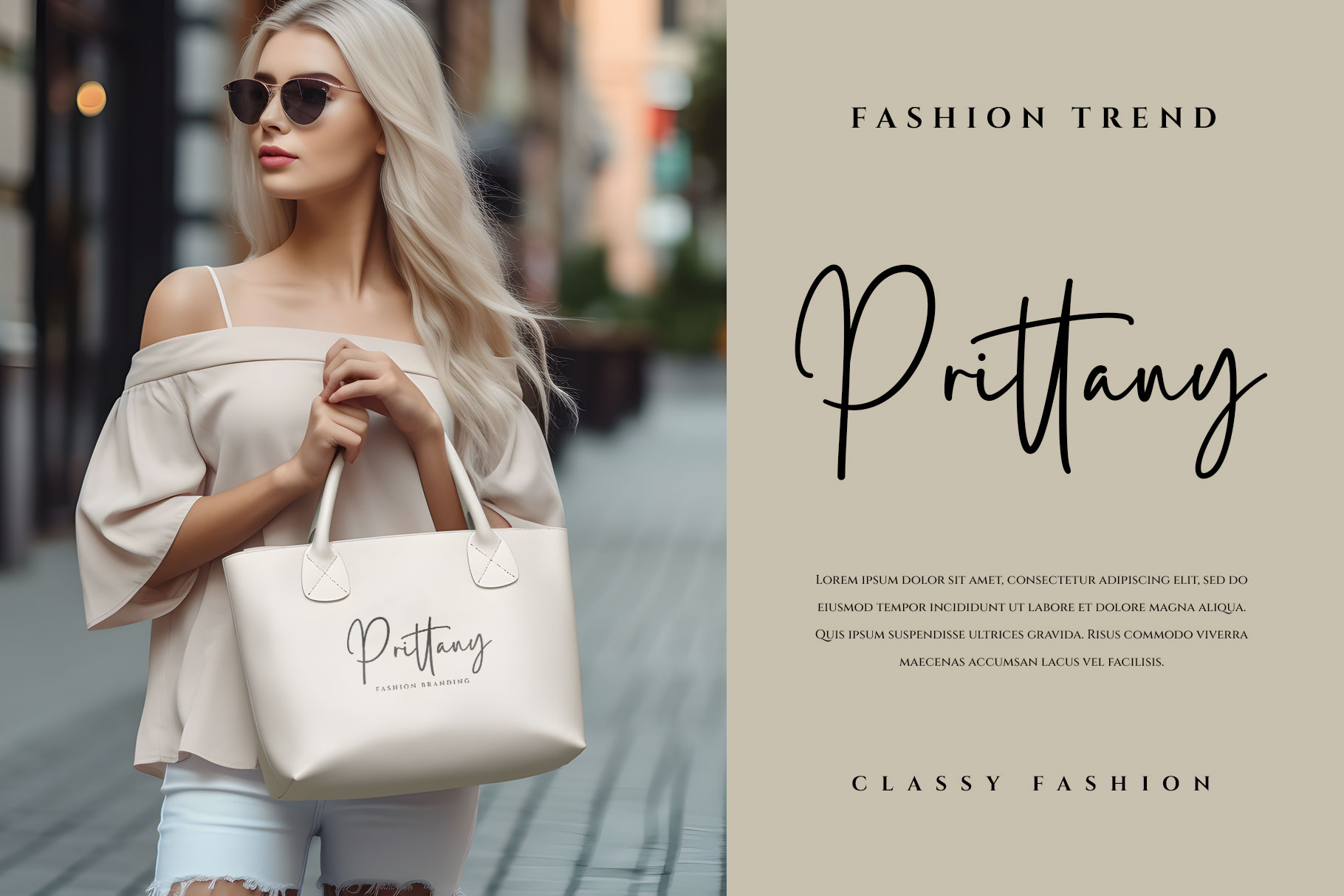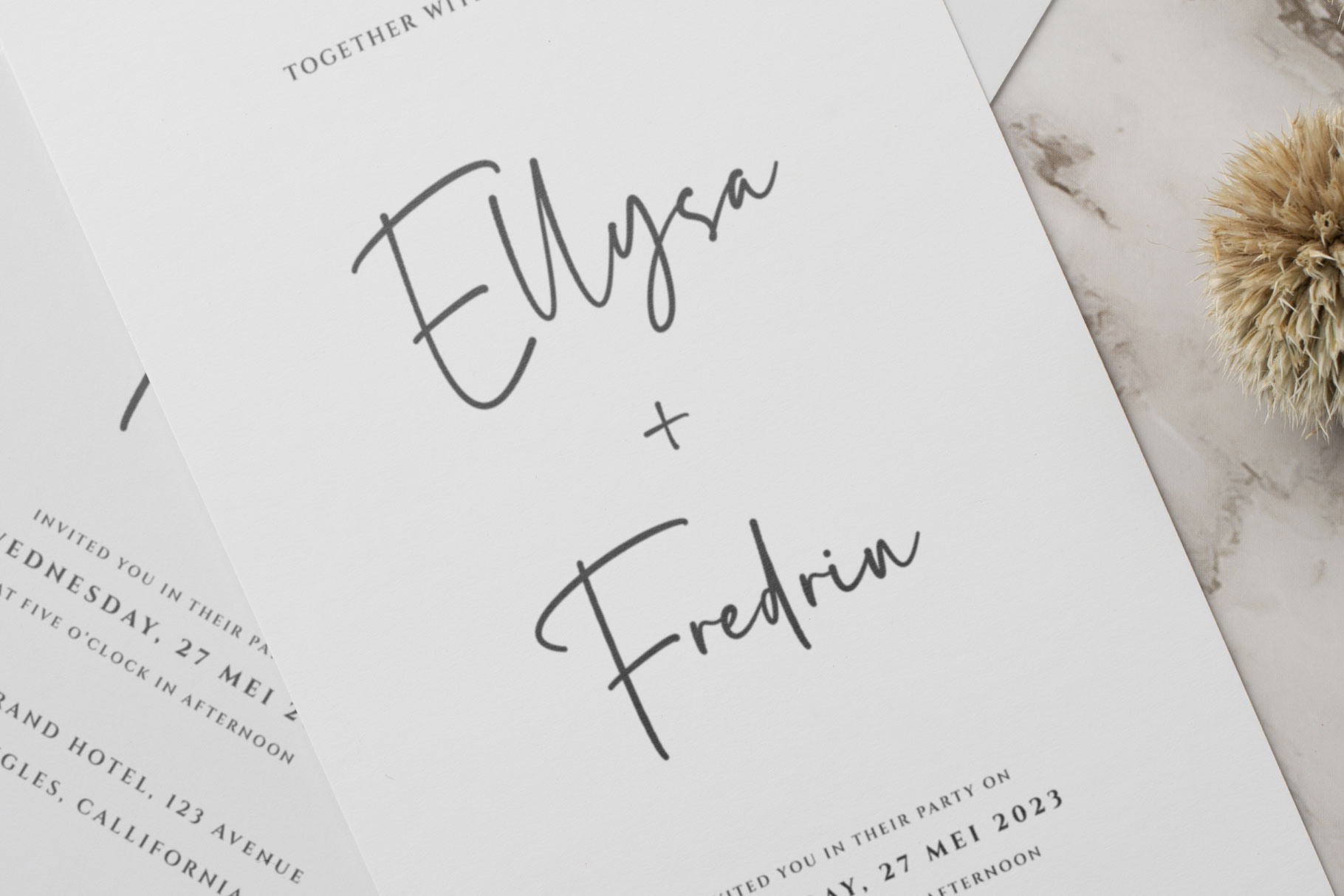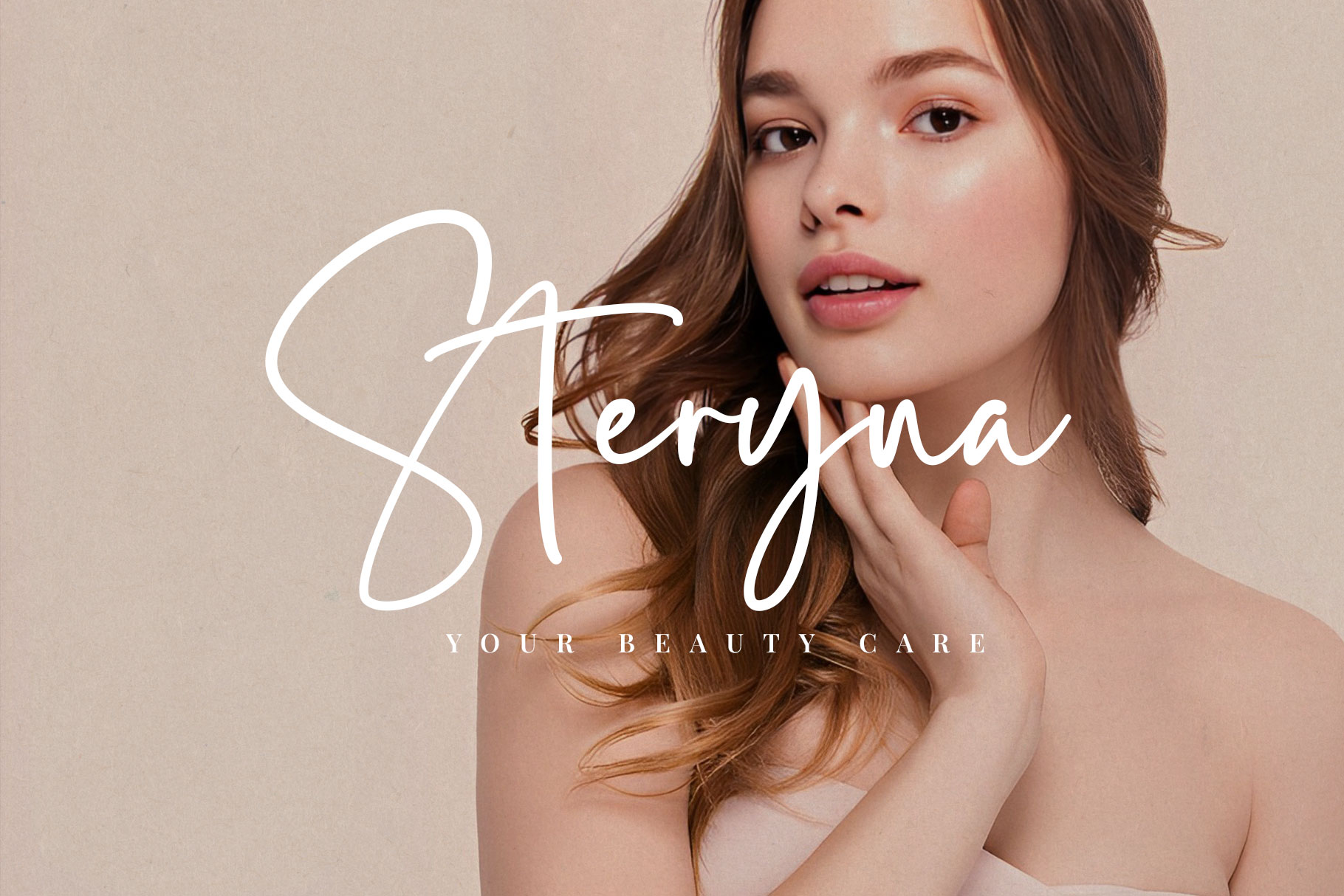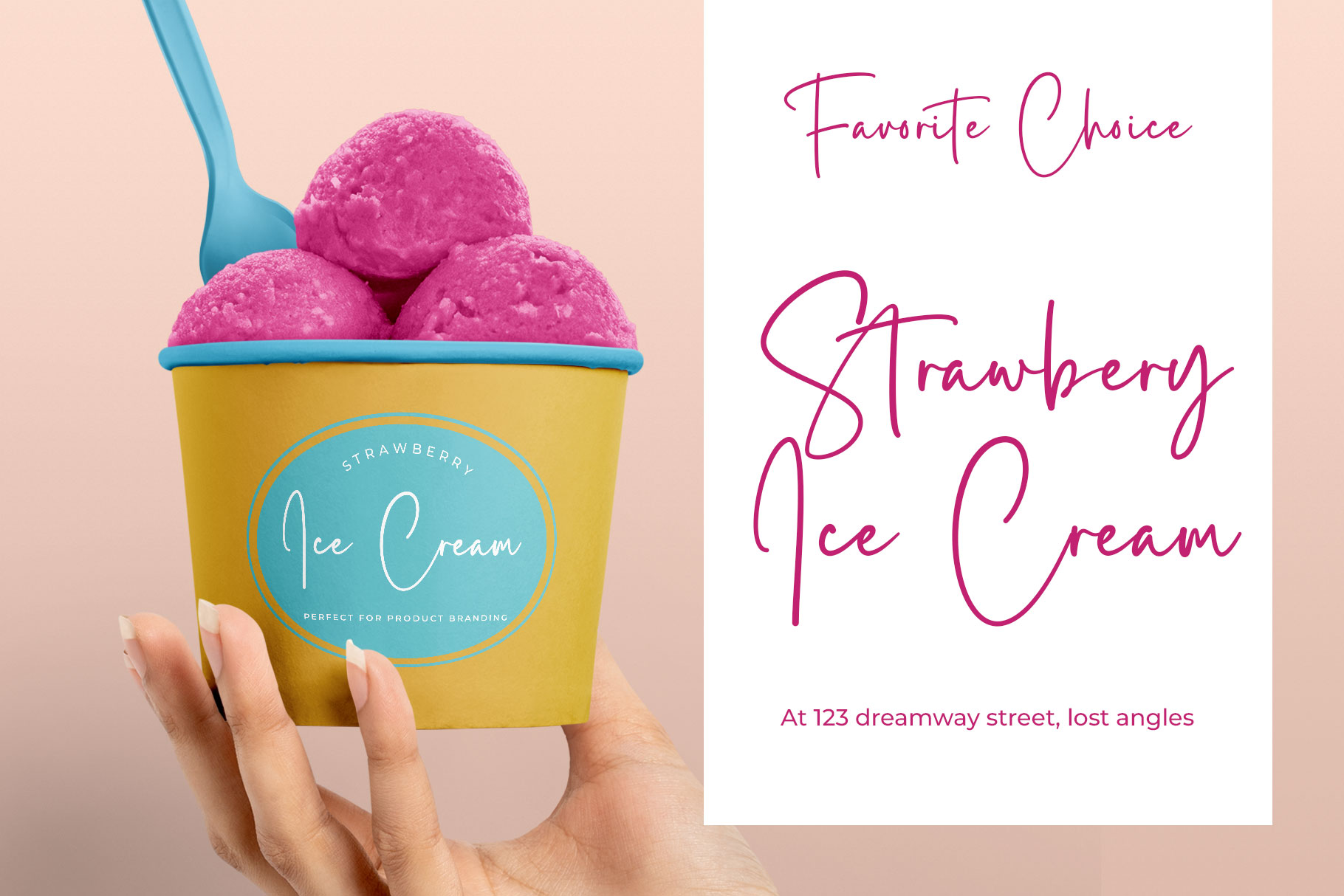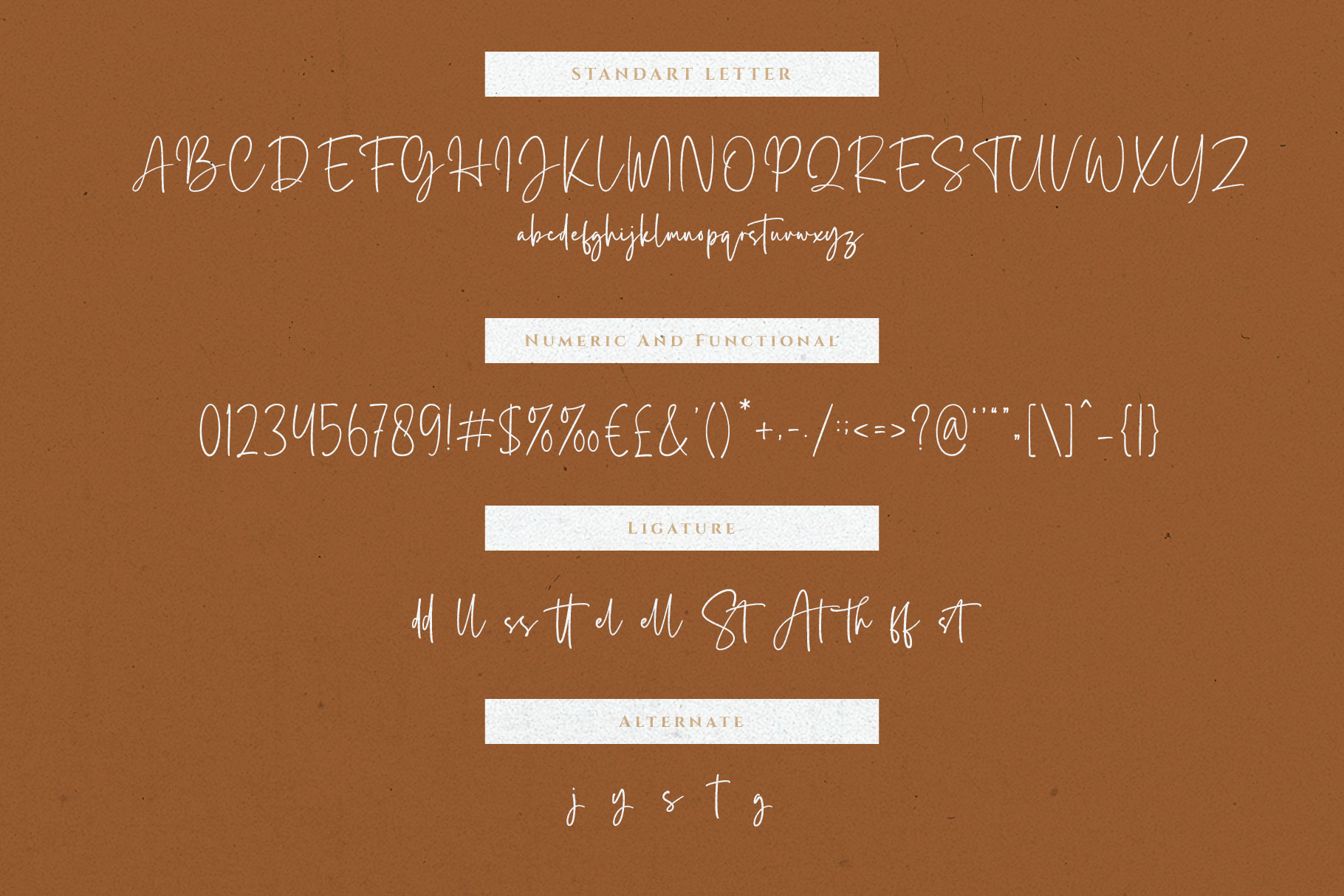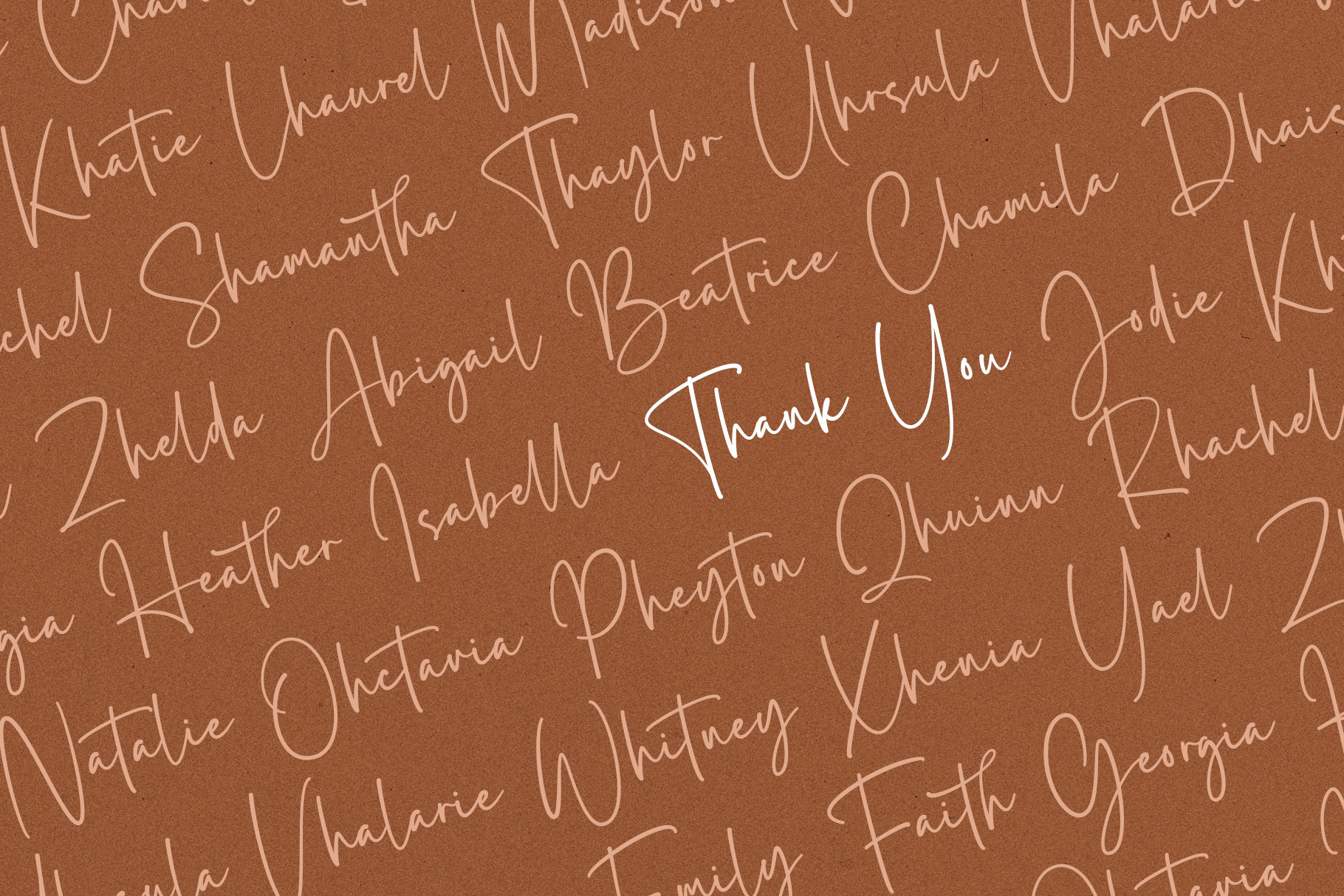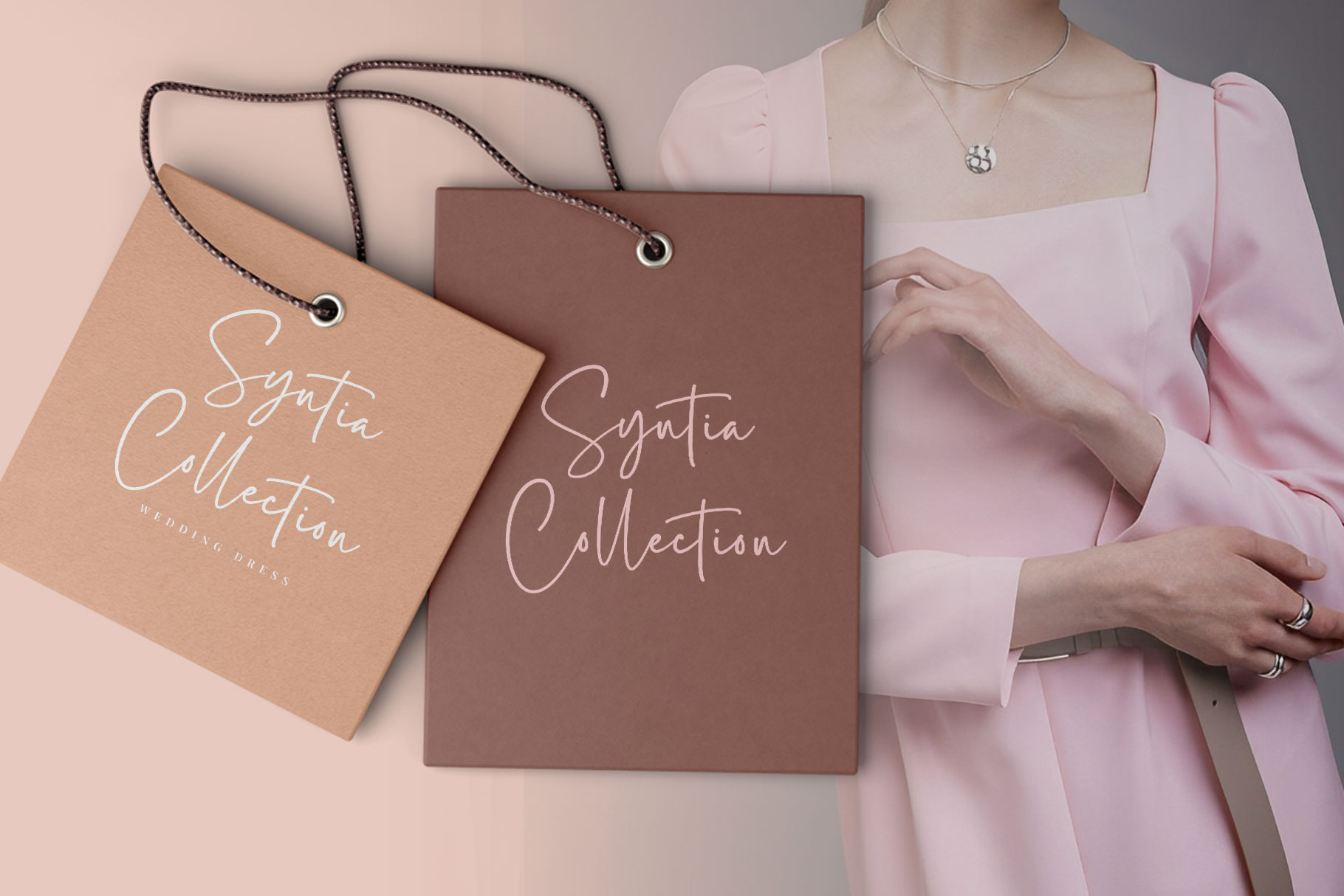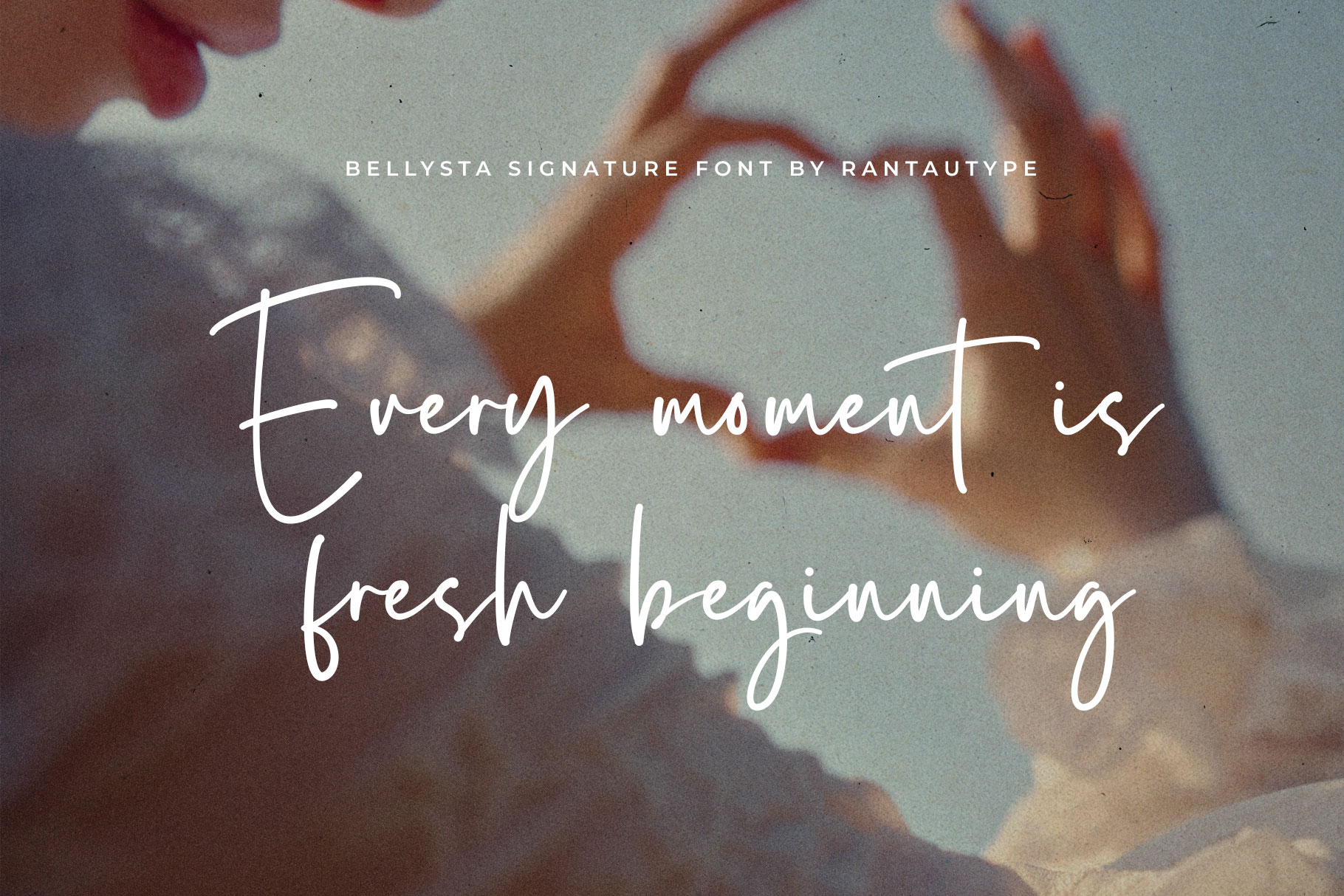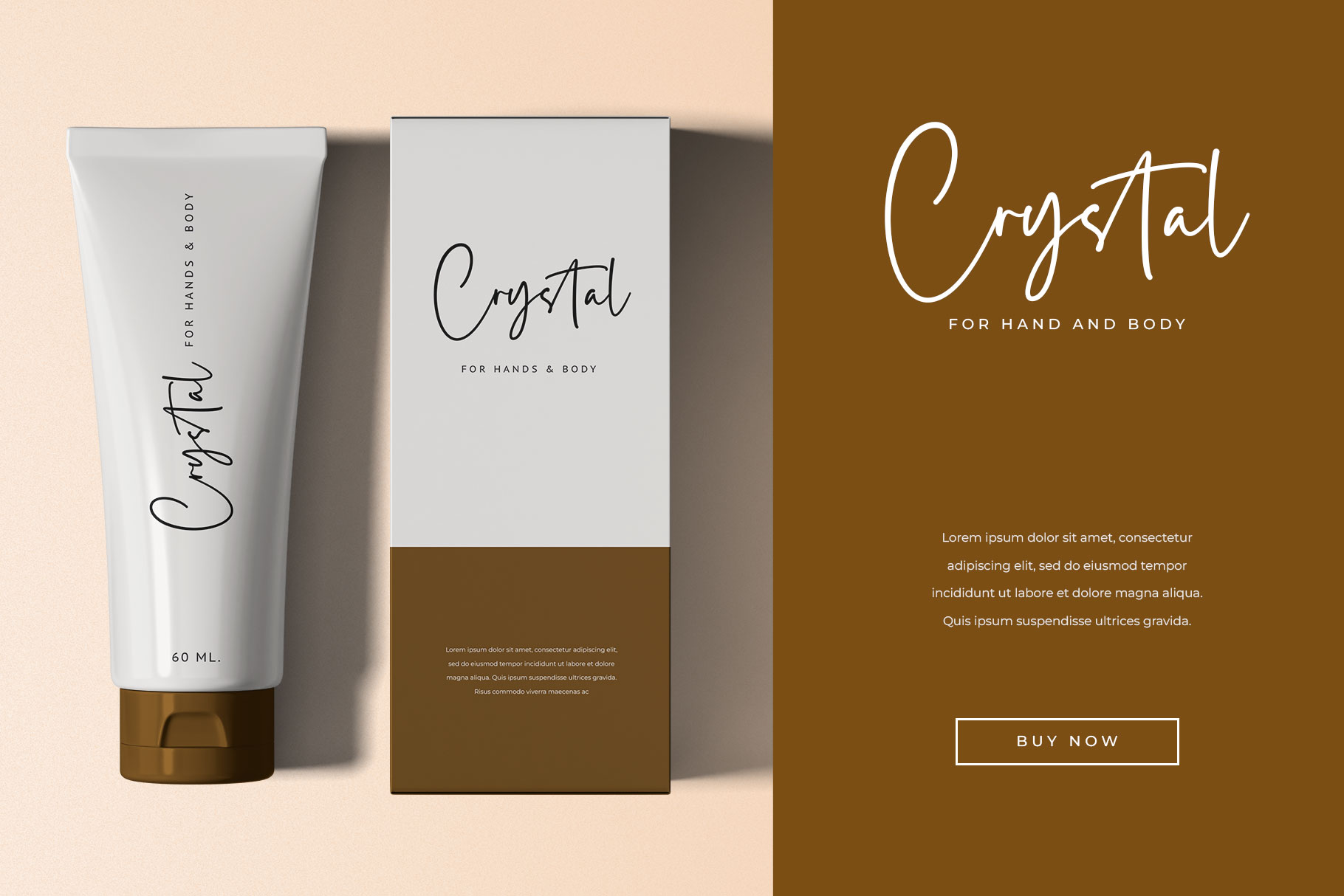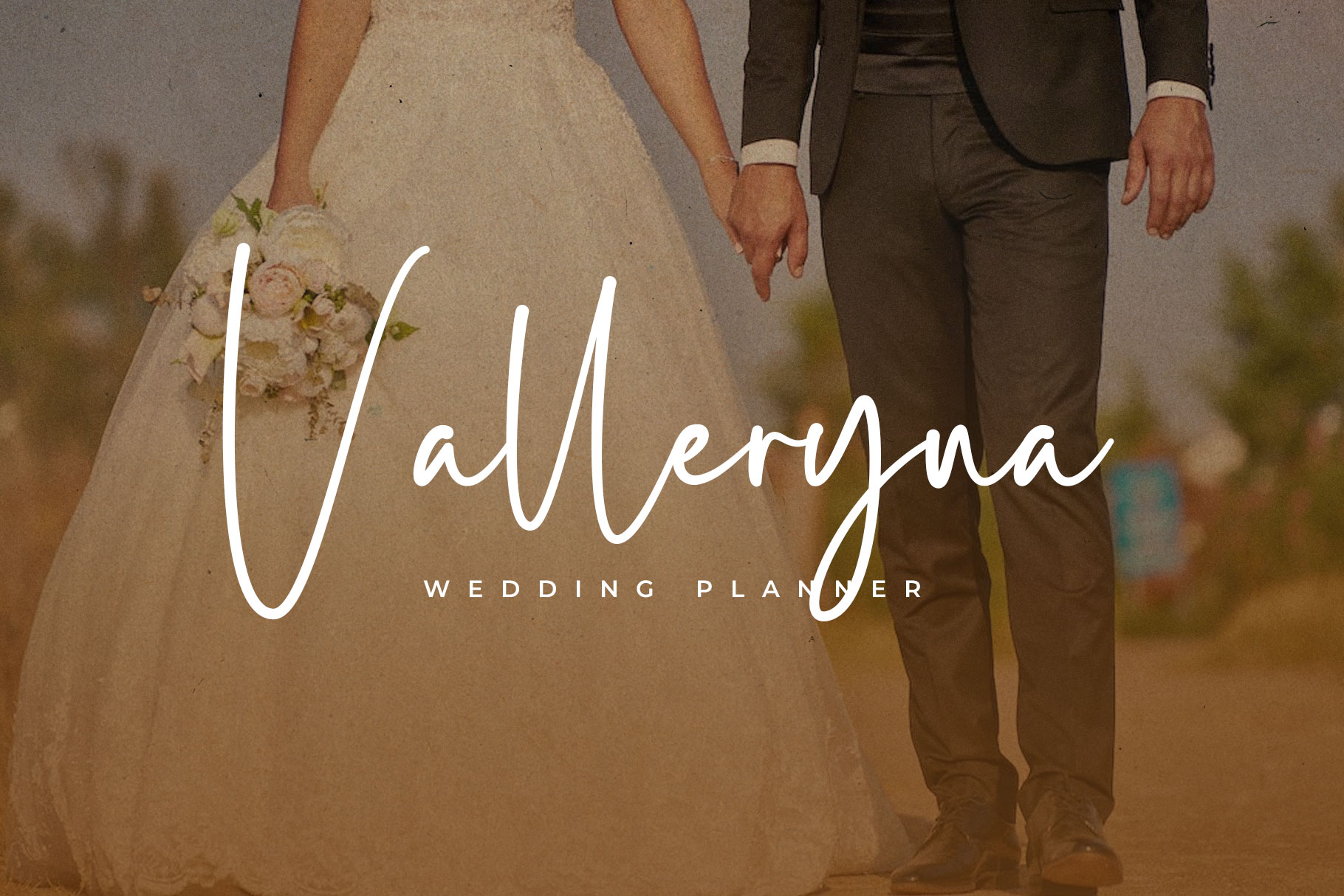
Bellysta Business Signature Font
Bellysta is business signature font which can be interpreted professional with stylish and soft curve. We keep this font looks modern, minimalist, elegant, readable, stylish, catchy and easy to use. Bellysta come with ligature, alternate and multilingual support.
Jesyta is a beautiful choice for any creative endeavor, chic, lifestyle design such as logos, title, watermark on photography, cover, branding, display and magazine, wedding event, quotes, album cover, business card, corporate, business project and many other design project. Bellysta here to make your work to high level!!!